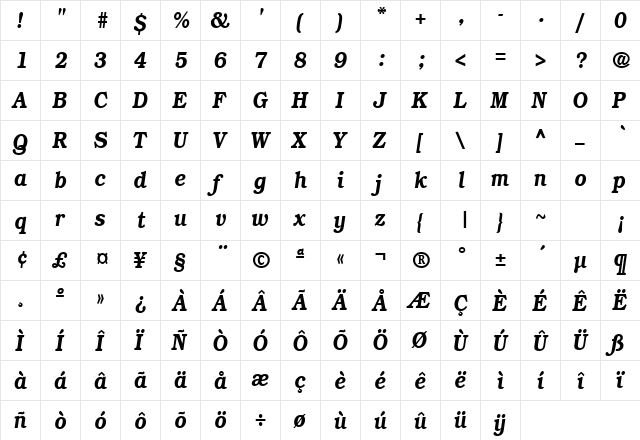
BookmanDemiItalicCond Regular
Design Context for BookmanDemiItalicCond Typeface
BookmanDemiItalicCond offers clean, dependable letterforms without strong stylistic allegiance, making it a practical choice for designers who need flexibility. The slanted form adds forward momentum and visual energy. The condensed width makes it efficient for tight spaces without sacrificing legibility.
Pro Tip: Use BookmanDemiItalicCond for emphasis, pull quotes, and subheadings where its slanted energy can add rhythm to the layout.